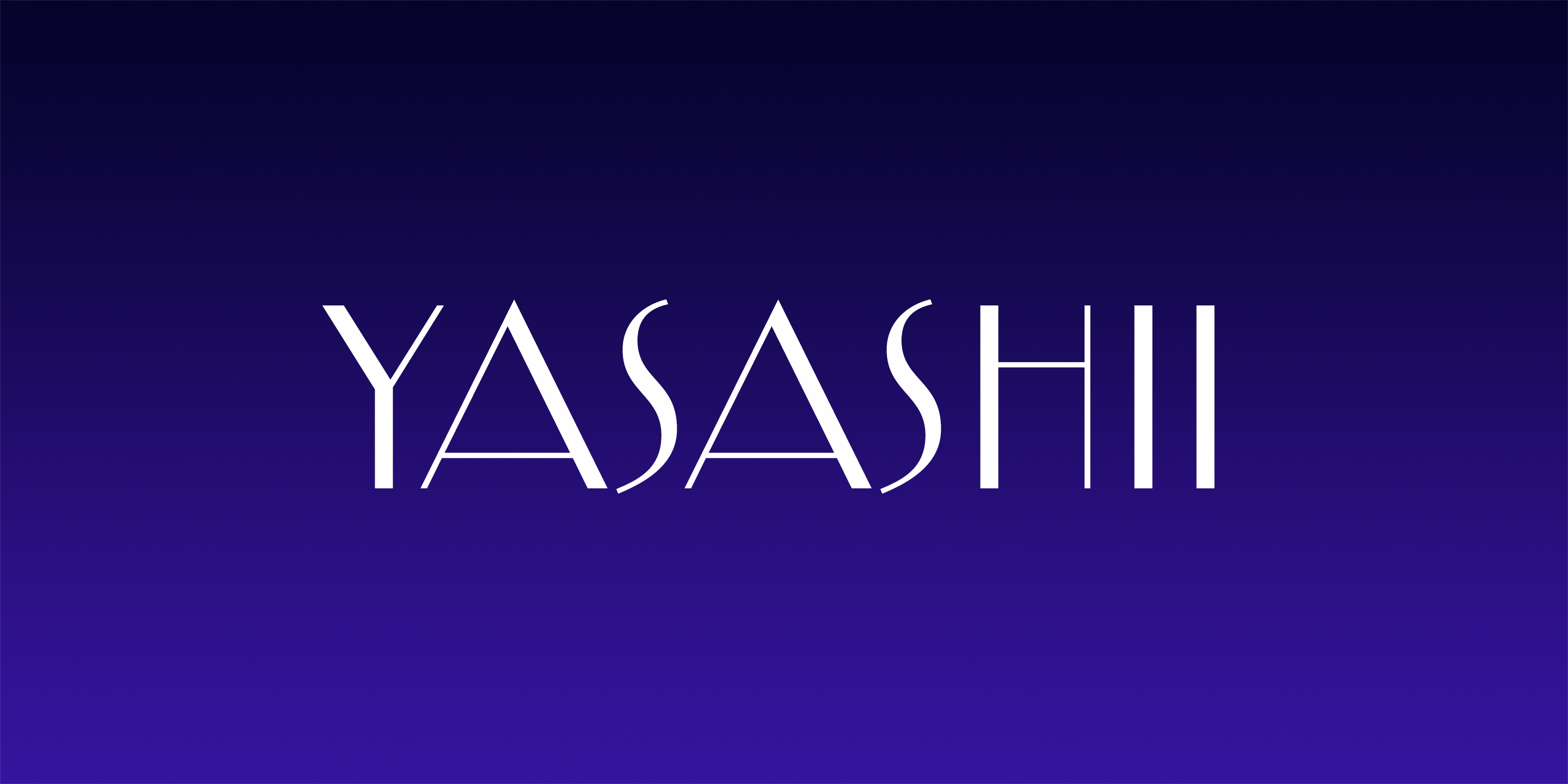
Yasashii Font is perfect for mindfulness meditation centers, gentle wellness branding, compassionate healthcare materials, zen garden signage, peaceful spa communications, kind childcare centers, empathetic counseling services, soft lifestyle products, nurturing educational materials, and serene therapeutic environments.
What makes Yasashii Font exciting is its gentle kindness and compassionate elegance that embodies the essence of Japanese gentleness with tender care and peaceful harmony. This soothing typeface captures the spirit of "yasashii" with its soft character forms and kindness-inspired proportions that evoke cherry blossoms floating on still water, gentle morning light filtering through bamboo, and the kind of tender compassion that heals hearts with quiet understanding. The font's gentle character creates an immediate sense of comfort and the kind of peaceful energy that makes everyone feel safe and cared for.
Yasashii Font family includes regular weight with tenderly crafted character designs featuring gentle curves and compassionate proportions. The typeface maintains excellent readability while showcasing its distinctive kind personality through softly designed letterforms that seem to embrace readers with the same gentle care that defines true compassion and understanding.
Wellness professionals consistently choose Yasashii Font Free Download for projects requiring authentic gentle appeal and compassionate credibility. This remarkable typeface brings the power of kindness to brand communications, combining peaceful aesthetics with empathetic authenticity to create meaningful caring experiences. The gently designed characters ensure compassionate positioning across all applications, making it essential for wellness centers, therapeutic services, and any organization seeking to communicate the transformative power of gentleness and the healing comfort that comes from embracing authentic kindness and peaceful understanding through Yasashii Font Free Download.